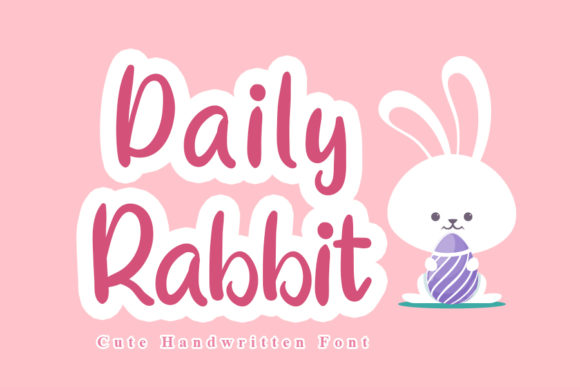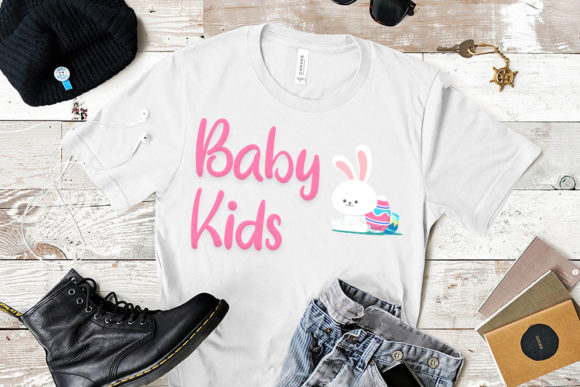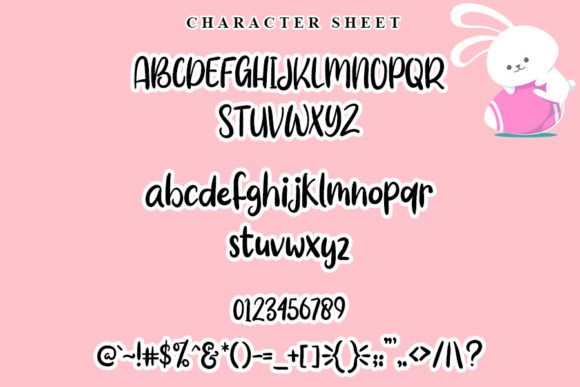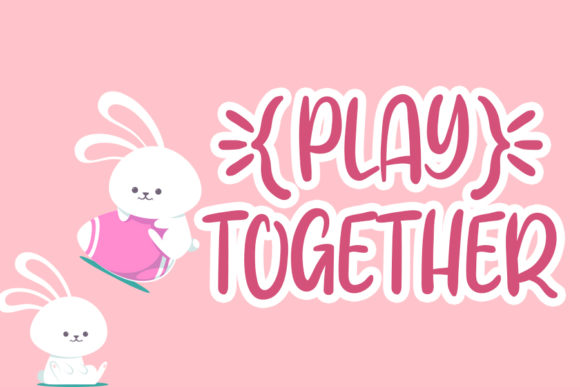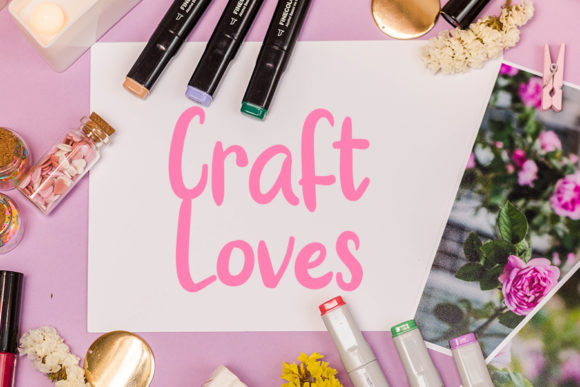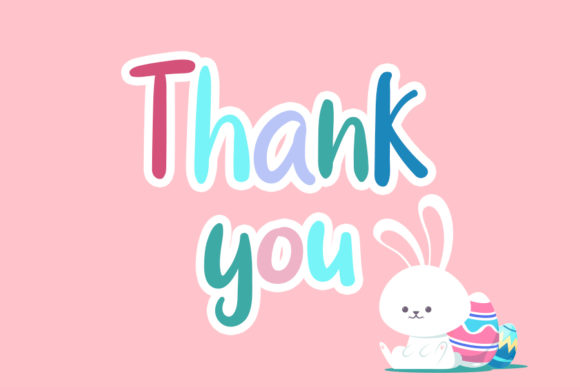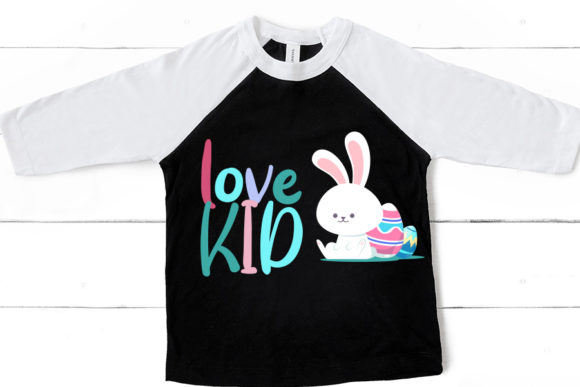
Daily Rabbit Font
About Daily Rabbit Font
Daily Rabbit is a stylish and delicate handwritten font. It has a flowing and smooth vibe and it will be a hit for any design that you want to add it to. This font is perfect for children themed designs, especially when combined with bright colors.